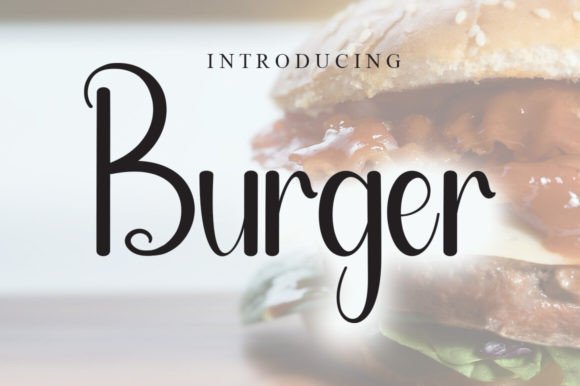
The Burger Font: A Sweet and Sassy Addition to Your Design Arsenal
Ah, the elusive perfect font. You know, that one font that makes your design project go from meh to mesmerizing. I’ve been there, done that, and got the t-shirt (which, coincidentally, was designed with a fabulous font). But today, I want to share with you a sweet and sassy friend that’s been making waves in my design world: the Burger font.
A Personal Encounter with Burger Font
I recall working on a romantic getaway brochure for a client, and I was stuck. The design was lovely, but something was missing. That’s when I stumbled upon Burger font, and it was love at first sight! Its gentle, cursive strokes and sweet flair instantly added a joyful and romantic touch to my project. It was as if the font was made for that specific design. And that’s when I knew I had to share it with the world.
What I Love About Burger Font ✨
• πŸ’• Its sweet and cursive handwritten style is perfect for romantic and whimsical designs.
• 🌈 The font’s versatility makes it suitable for a wide range of projects, from wedding invitations to brand identities.
• πŸ” Burger font comes with a range of OpenType features, glyphs, and stylistic alternates, giving you plenty of creative freedom.
• πŸ‘ It’s incredibly legible, even at smaller font sizes.
Small Quirks or Limitations πŸ€”
• ⚠️ Some of the more intricate swashes and flourishes might not display properly on certain devices or browsers.
• πŸ€” If you’re planning to use Burger font for body text, be aware that it’s a bit on the fancier side, so it might not be the best choice for longer blocks of text.
The Story Behind Burger Font: A Designer’s Inspiration
Burger font was created with love and care by a talented type designer who’s passionate about crafting beautiful, handmade-inspired fonts. The designer’s goal was to create a font that’s both elegant and approachable, perfect for designs that require a touch of whimsy and romance.
Q: What type of designs is Burger font best suited for?
A: Burger font is versatile and can be used for a wide range of designs, from romantic and whimsical projects like wedding invitations and branding to more playful and creative endeavors like posters and social media graphics.
Q: Can I use Burger font for body text?
A: While Burger font is incredibly legible, it’s a bit on the fancier side, so it might not be the best choice for longer blocks of text. However, it’s perfect for headings, titles, and short paragraphs.